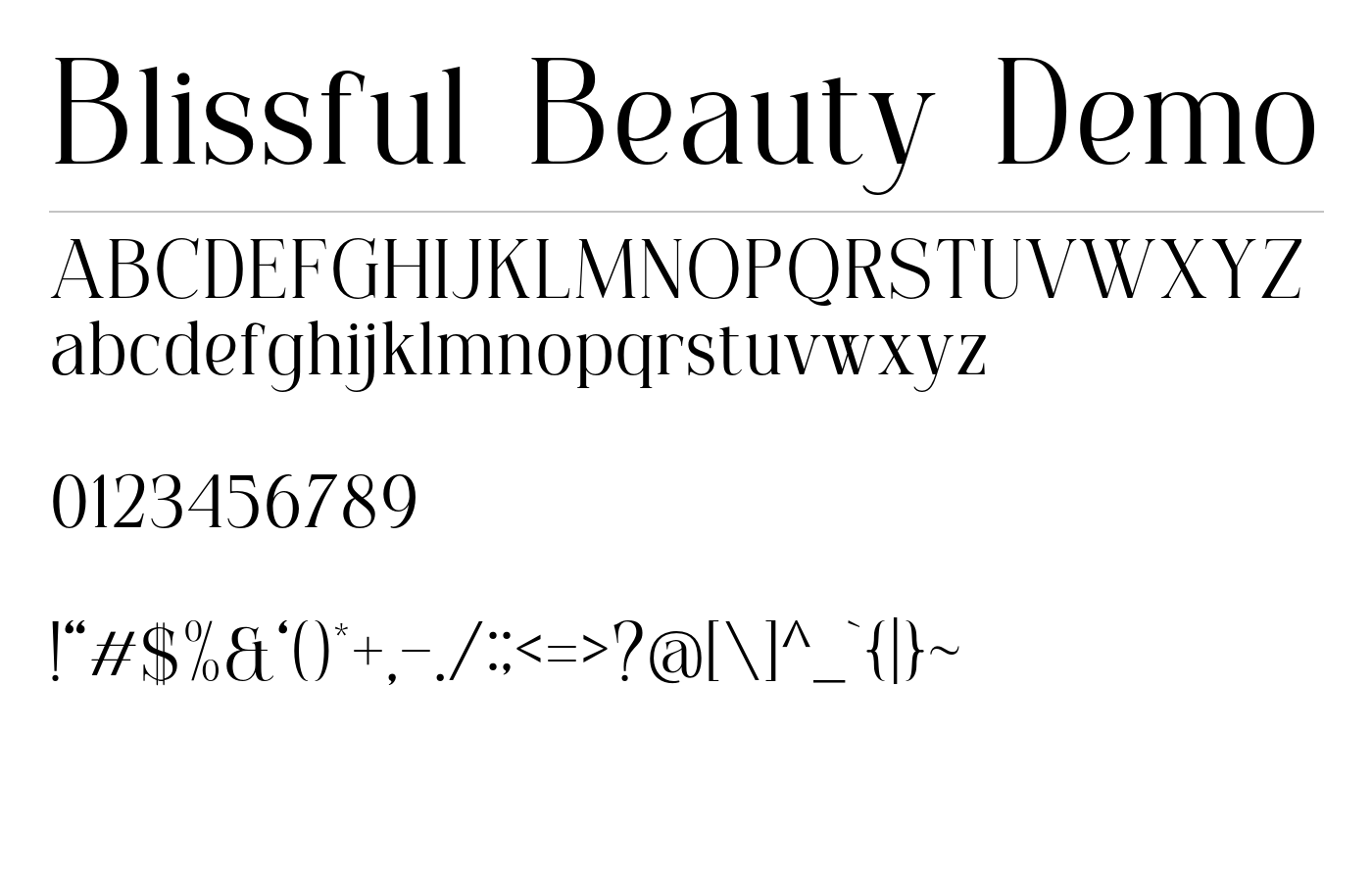
Blissful Beauty Demo is an elegant serif font with a refined and slender structure, characterized by its high contrast between thick and thin strokes and delicate, bracketed serifs. Its tall x-height and graceful curves give it a sophisticated and modern feel, making it ideal for luxury branding, editorial headlines, and stylish packaging. This font combines timeless charm with contemporary elegance, perfect for designs that aim to convey beauty and refinement.
Blissful Beauty Demo Font
About Blissful Beauty Demo Font
| Font family | Blissful Beauty Demo Font |